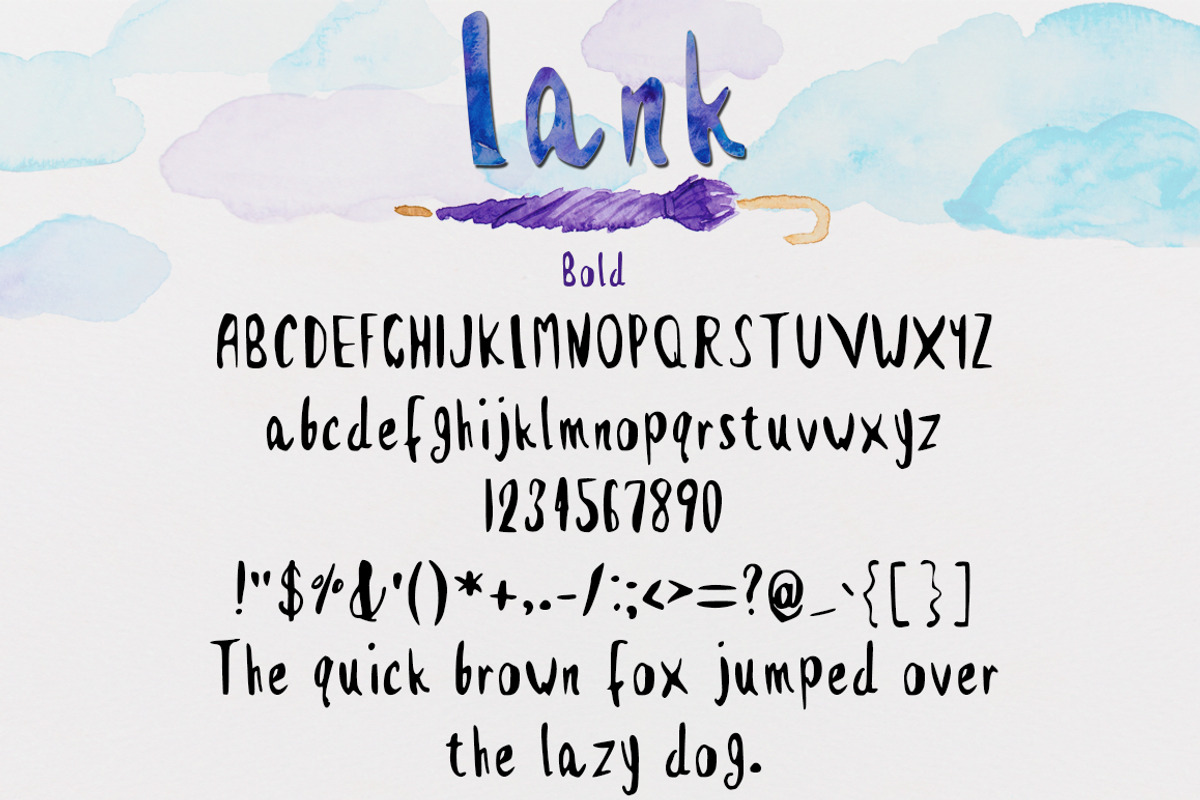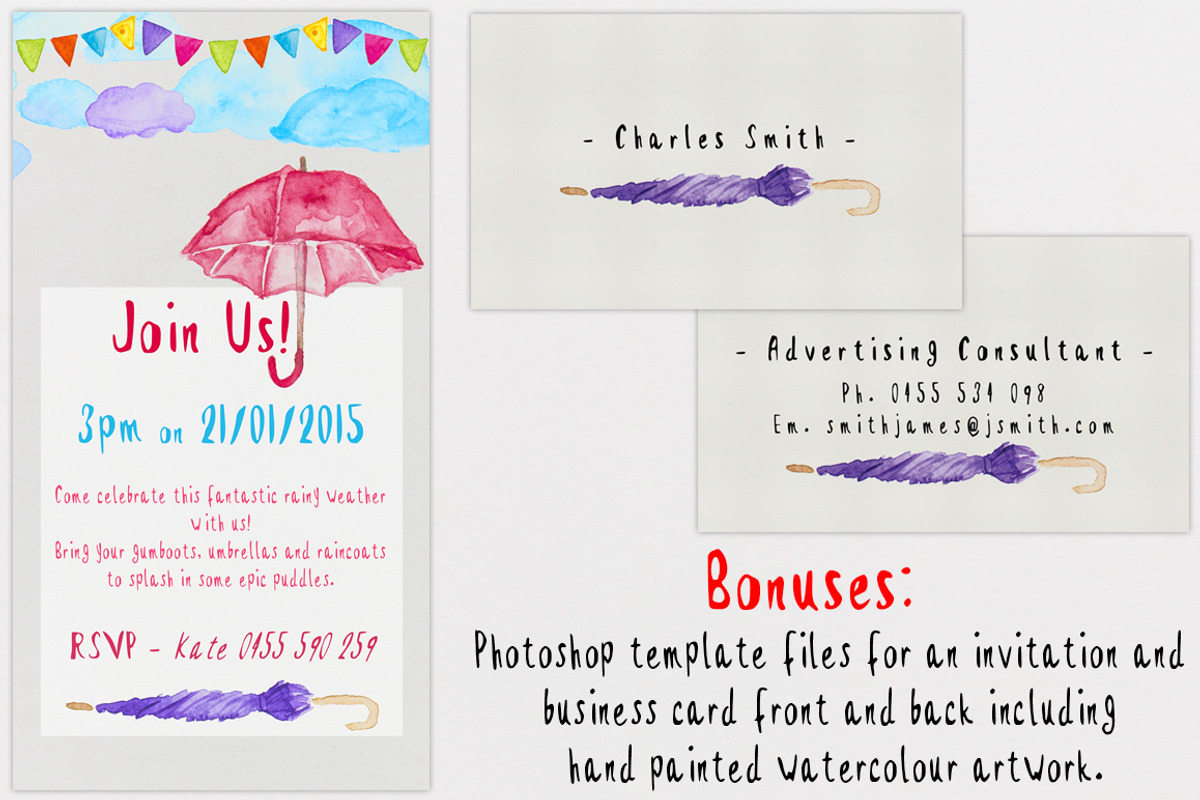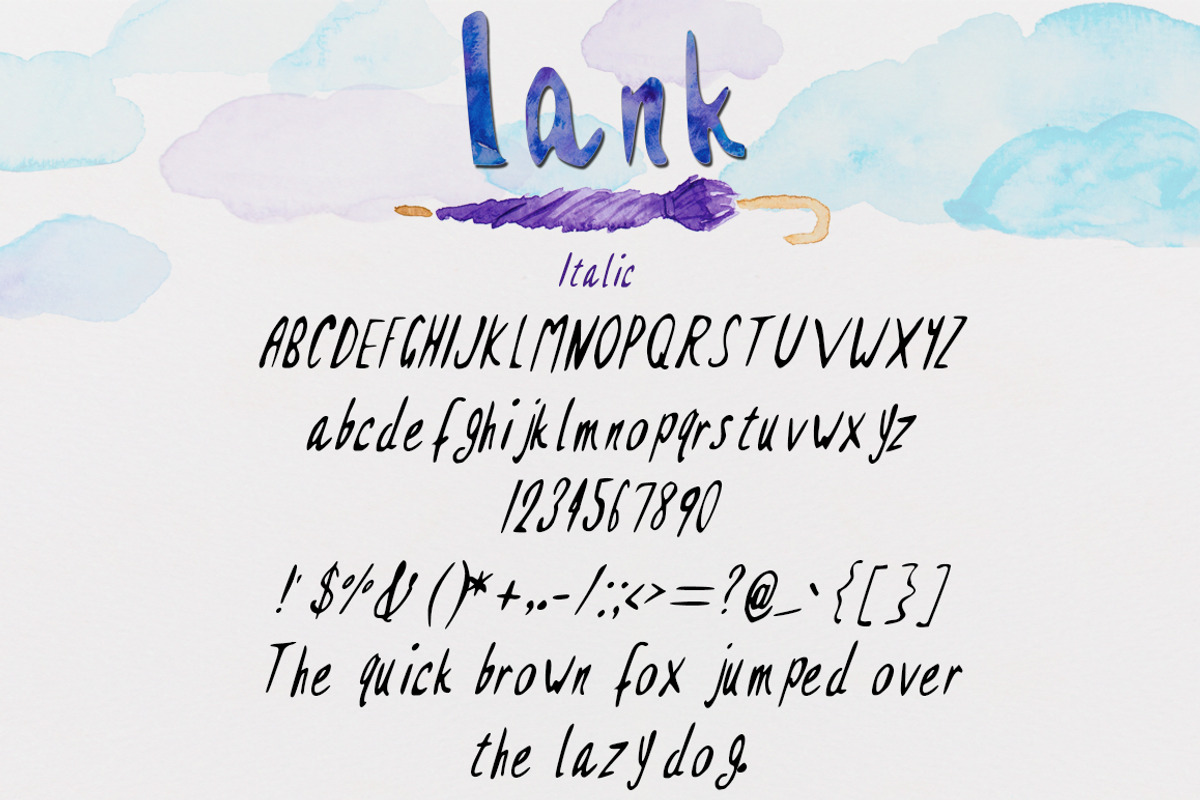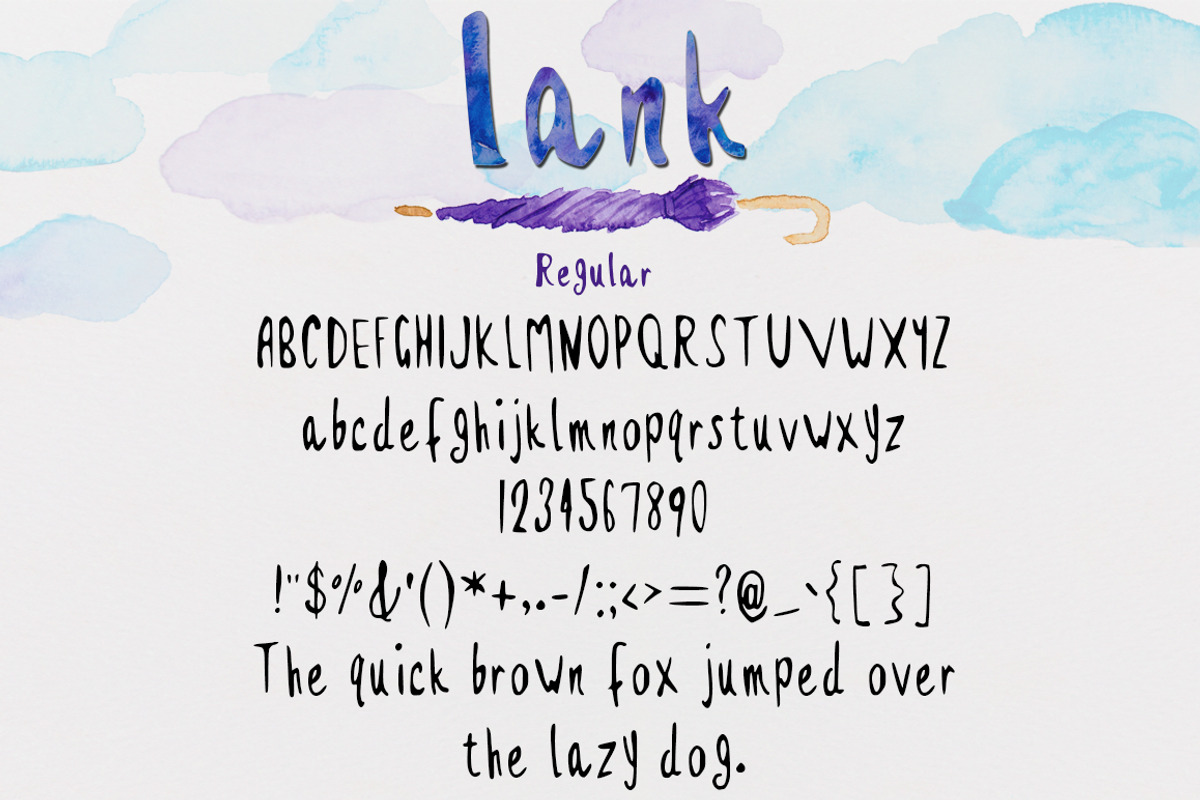
Lank - Regular, Bold and Italic Font
Lank - Regular, Bold and Italic Font by Violet LeBeaux is a font selected for branding, posters, packaging, typography.
- Lank comes with Regular, Bold and Italic options as well as uppercase, lower case, numerals and punctuation.
Why Lank - Regular, Bold and Italic Font is worth a look
Lank - Regular, Bold and Italic Font by Violet LeBeaux fits naturally into Branding, posters, packaging, typography.